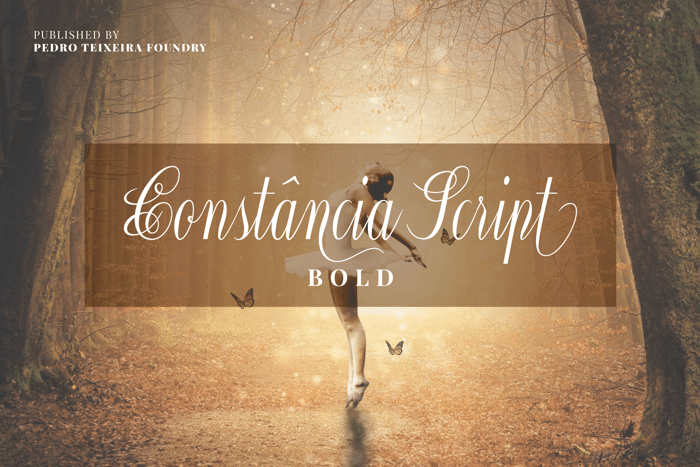
Constancia Script Font
Constância Script, classic and elegant calligraphy. This unique, stylish and legible script is handy for logo, poster, headlines, invitations, cards and all display needs. This version it's for personal use only. Contância Script has another style "regular", and the two complete styles has a lot of alternates (with swashes) making a total in each style of 728 glyphs.